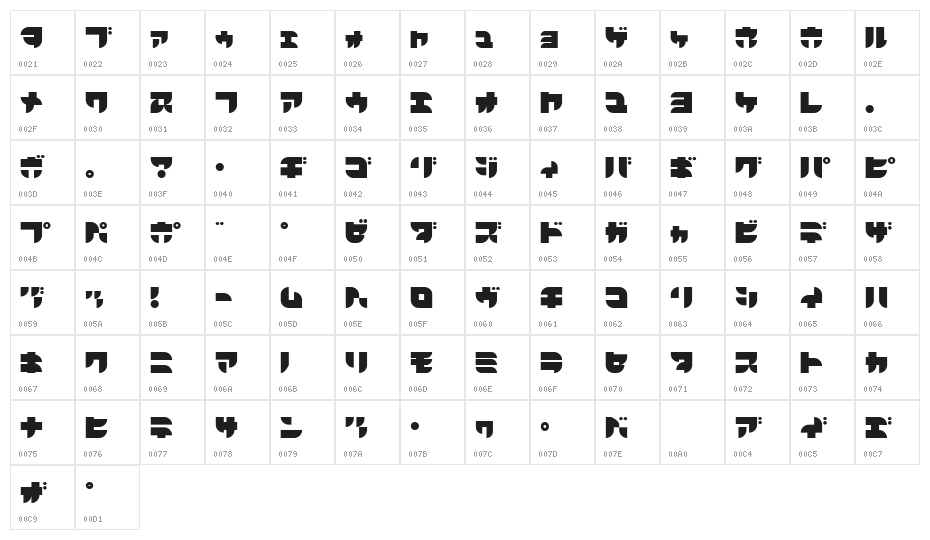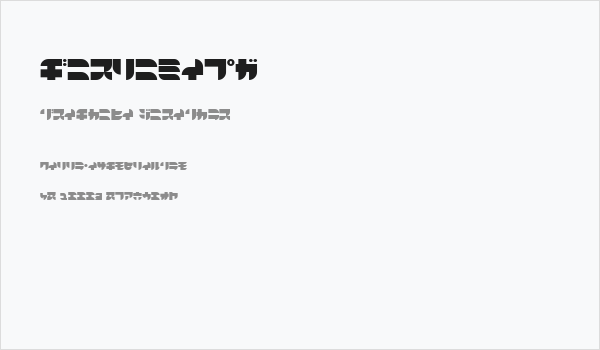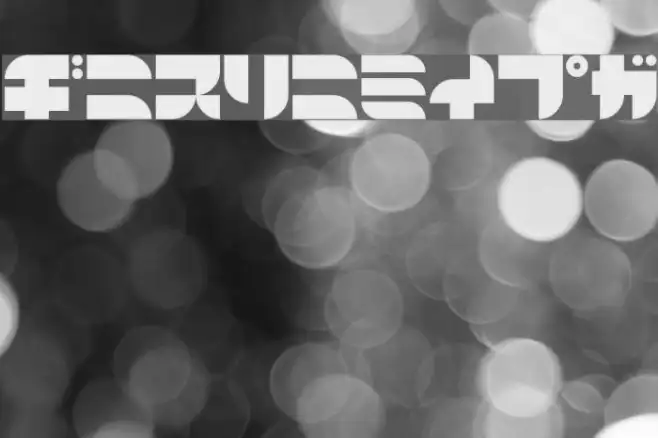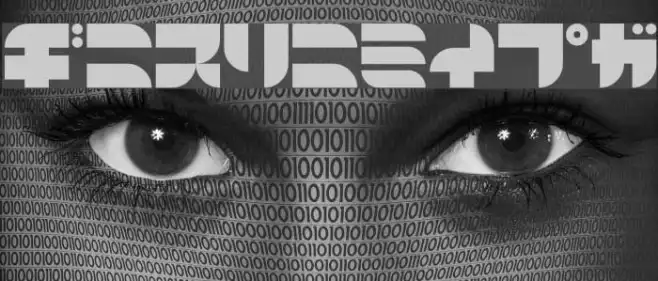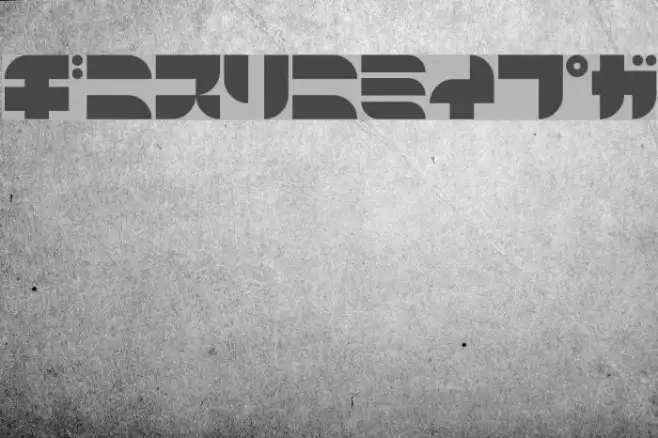
AirlineKT Font
AirlineKT Description
This font features a bold and striking design with a futuristic and geometric aesthetic. The characters are heavily stylized, with thick strokes and sharp angles, creating a sense of movement and dynamism. The overall appearance is modern and eye-catching, making it suitable for attention-grabbing headlines or logos. The font's unique style is characterized by its blocky and compact form, which gives it a strong visual presence. The spacing between characters is tight, enhancing its boldness and impact.
| Overall Style | Futuristic, Geometric |
| Proposed Projects | Ideal for sci-fi themed posters, technology brand logos, video game titles, and modern advertising campaigns. |